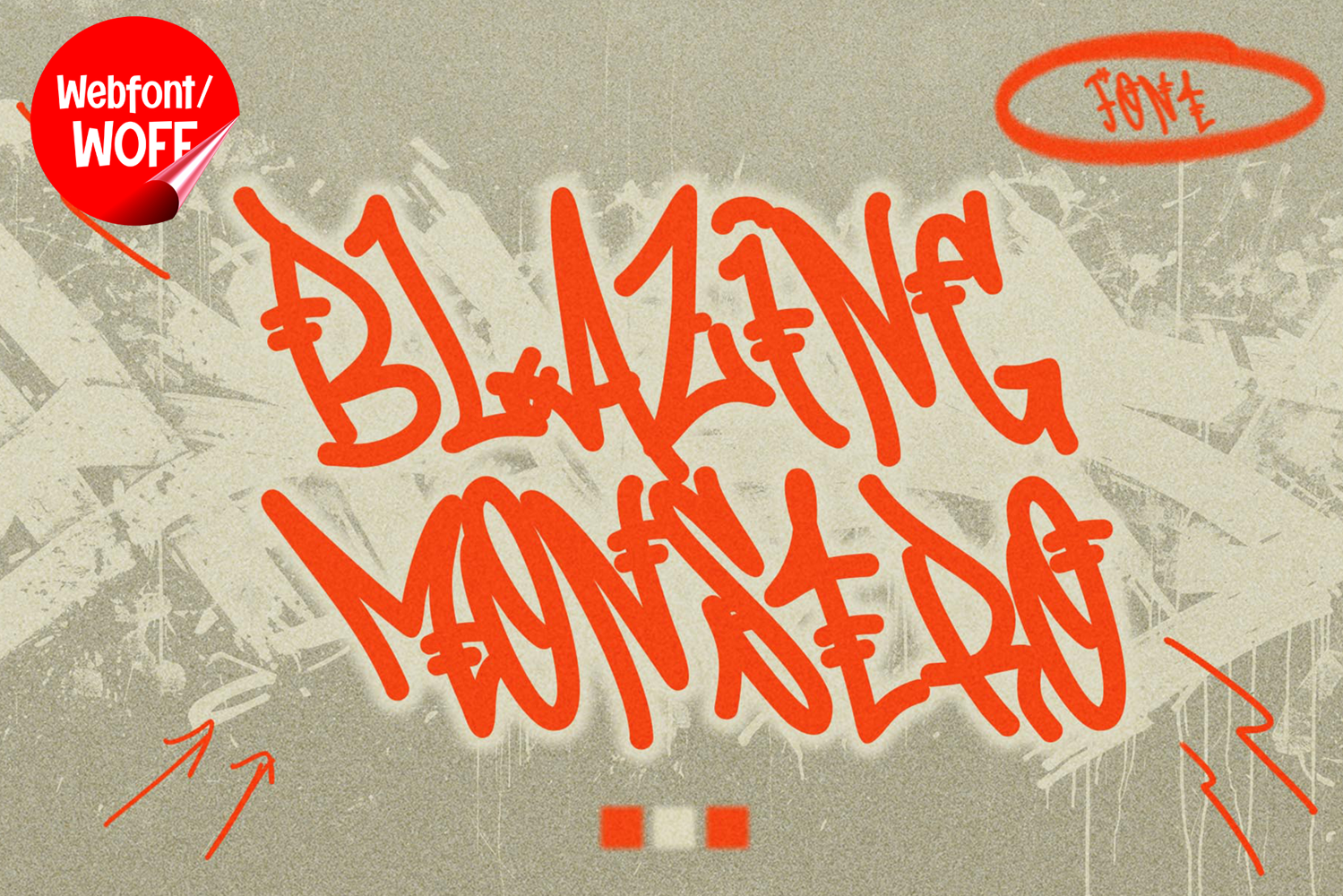
Blazing Monstro | Monoline Decorative Graffiti Webfont
Blazing Monstro is a monoline decorative graffiti webfont designed to bring a bold yet clean urban style into modern website design. Combining smooth single-line strokes with decorative graffiti elements, this font delivers a unique balance between structure and artistic expression. It is an excellent choice for projects that require a creative street-inspired look with a refined and modern touch.
Blazing Monstro features a complete set of uppercase characters designed with a monoline structure enhanced by decorative graffiti details. The consistent stroke weight creates a smooth and cohesive appearance, while the added stylistic elements bring personality and visual interest. These letterforms are ideal for headlines, banners, hero sections, and featured content where a distinctive and eye-catching style is needed.
In addition to letters, the font includes numbers and punctuation, making it versatile for various website elements. It works well for promotional text, navigation highlights, interface accents, and short messages. Each character maintains a consistent decorative graffiti style, ensuring a unified and polished visual identity throughout the layout.
With multilingual support, Blazing Monstro includes a wide range of accented characters, making it suitable for international websites and global audiences. This allows content to be displayed clearly across different languages while preserving the unique graffiti-inspired aesthetic.
The monoline decorative graffiti style of Blazing Monstro makes it especially suitable for urban-themed websites, streetwear brands, music platforms, creative portfolios, and lifestyle blogs. Its clean stroke design offers a modern interpretation of graffiti, while the decorative elements add flair and individuality. This combination helps designs stand out without overwhelming the layout.
Despite its decorative nature, Blazing Monstro is designed with readability in mind. The spacing and stroke consistency are carefully balanced to ensure clarity, particularly in display sizes and short text applications. This makes it effective for both visual highlights and supporting interface elements.
Blazing Monstro is a webfont that blends graffiti creativity with clean monoline precision and decorative styling. Its smooth lines, consistent structure, and expressive details create a distinctive typographic presence that enhances website design. For projects that require a stylish graffiti look with a creative edge, Blazing Monstro delivers a balanced and impactful solution.